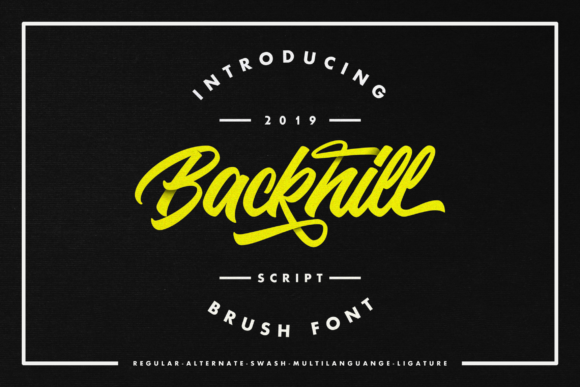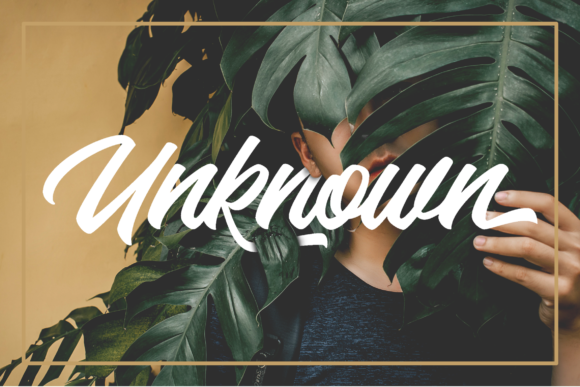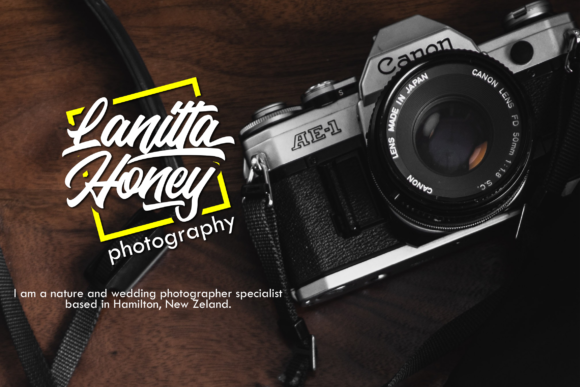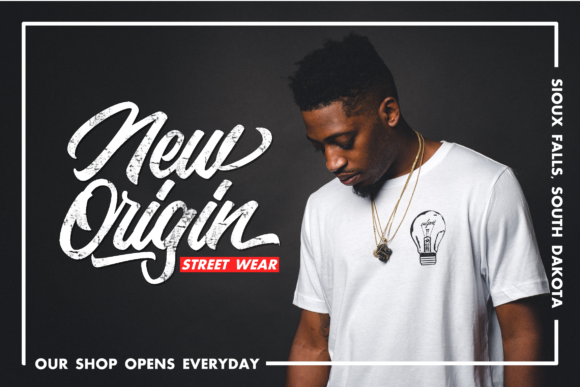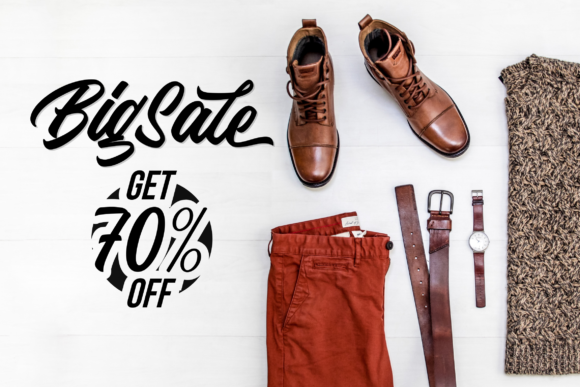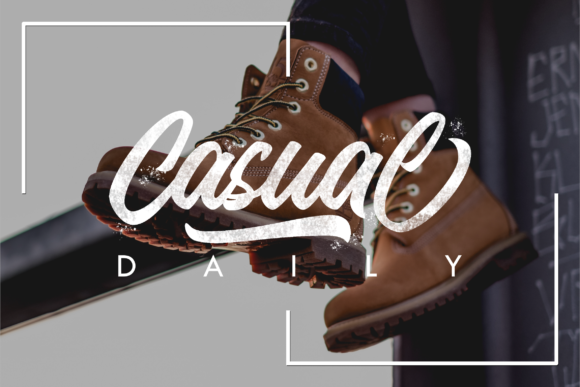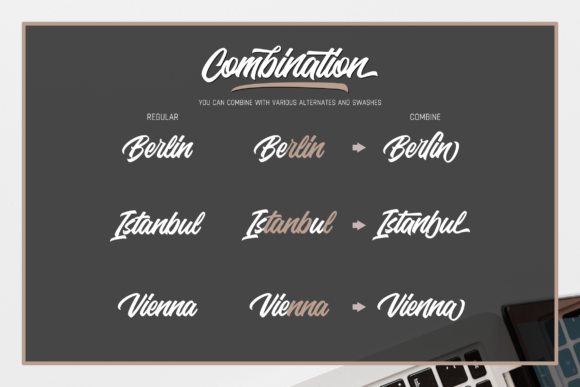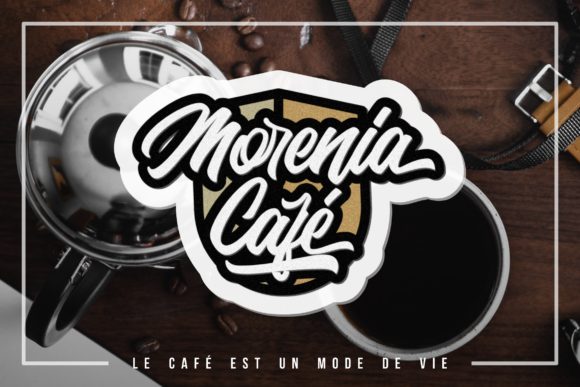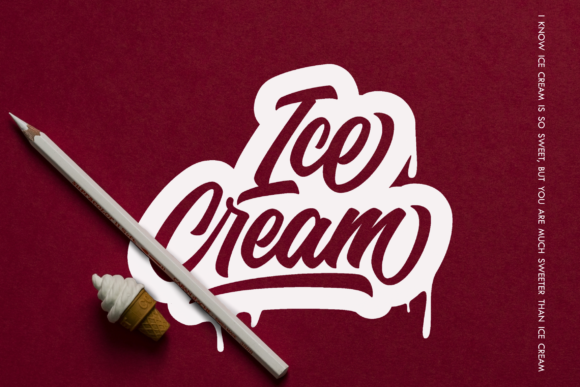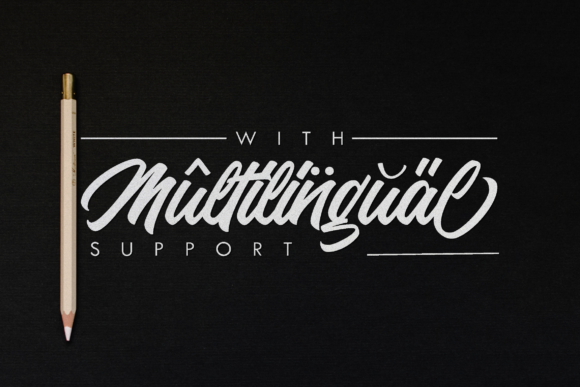
Backhill Font
About Backhill Font
The Backhill is a striking display font. It was inspired by classic posters and includes a bold look which can be used to make any design stand out!